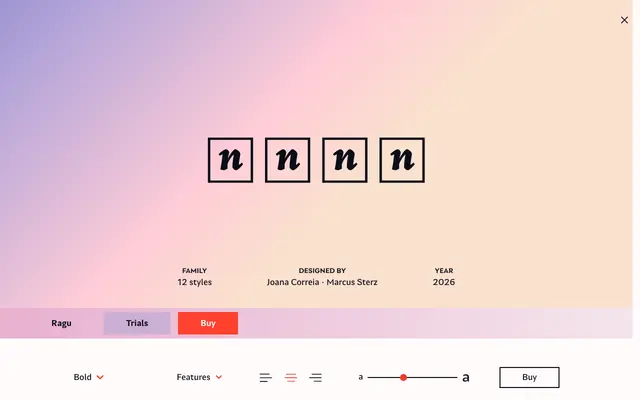
A rounded display typeface by Joana Correia and Marcus Sterz, built for branding and packaging where warmth and shelf presence matter equally.
Six upright weights from Extralight to Bold, each paired with a true italic, give designers a tonal range that moves from gentle to assertive while retaining consistent softness. Open counters, carefully controlled spacing and sturdy silhouettes allow Ragu to hold legibility at smaller sizes, covering ingredients lists and functional label copy as well as headlines. Distinctive terminal and curve details add craft character without disrupting the coherence needed for brand systems. Covers Latin Extended and Vietnamese.
Ragu is classified as display due to its soft rounded construction, generous curves and distinctive terminal details aimed at branding, packaging and signage rather than extended text use.